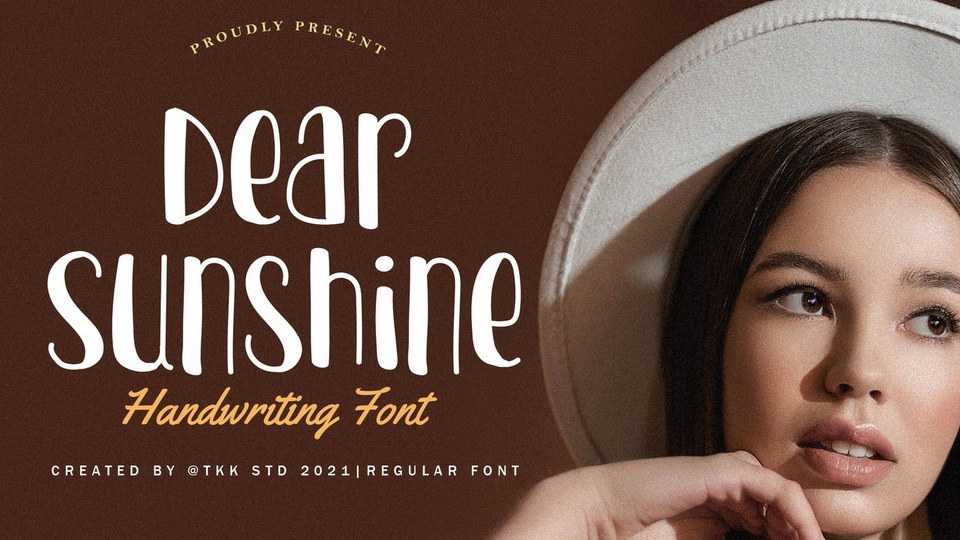
Download Dear Sunshine font, a girly typeface, chic and attractive with an outgoing personality. Dear Sunshine will emphasize the cuteness and chic girly vibe that you want to have on your design.